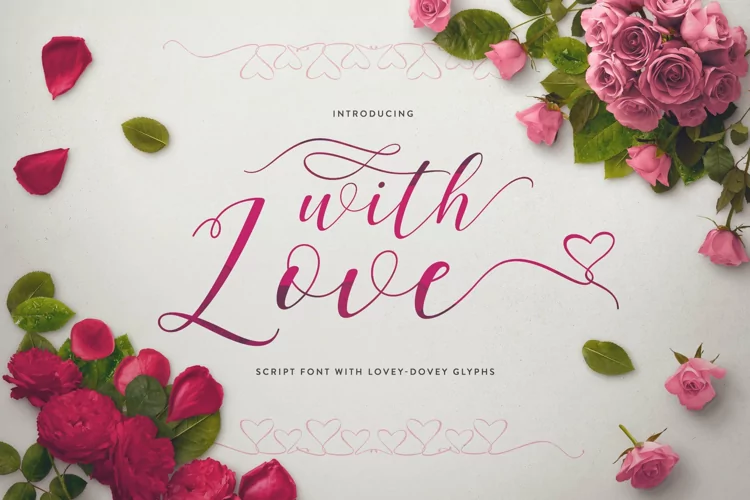
With Love - Lovely Heart Script Font
With Love is modern and beautiful script font with heart accent. It has heart balloon accent as swash.
This font is perfect for design that needs heart and lovely touch, such as wedding, invitation, valentines day, thanksgiving, birthday, and many more.
+Tons of PUA-Encoded extra glyphs, which means can be accessed easily.
+Multilingual glyphs.